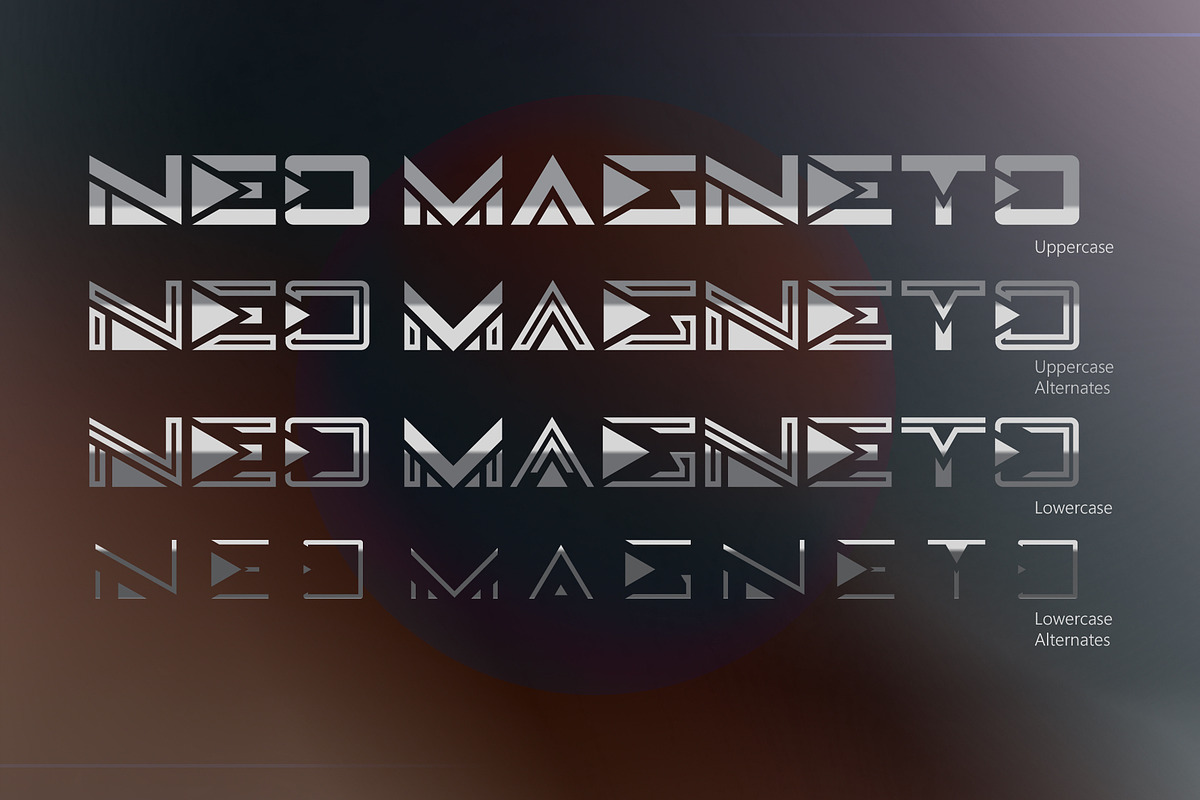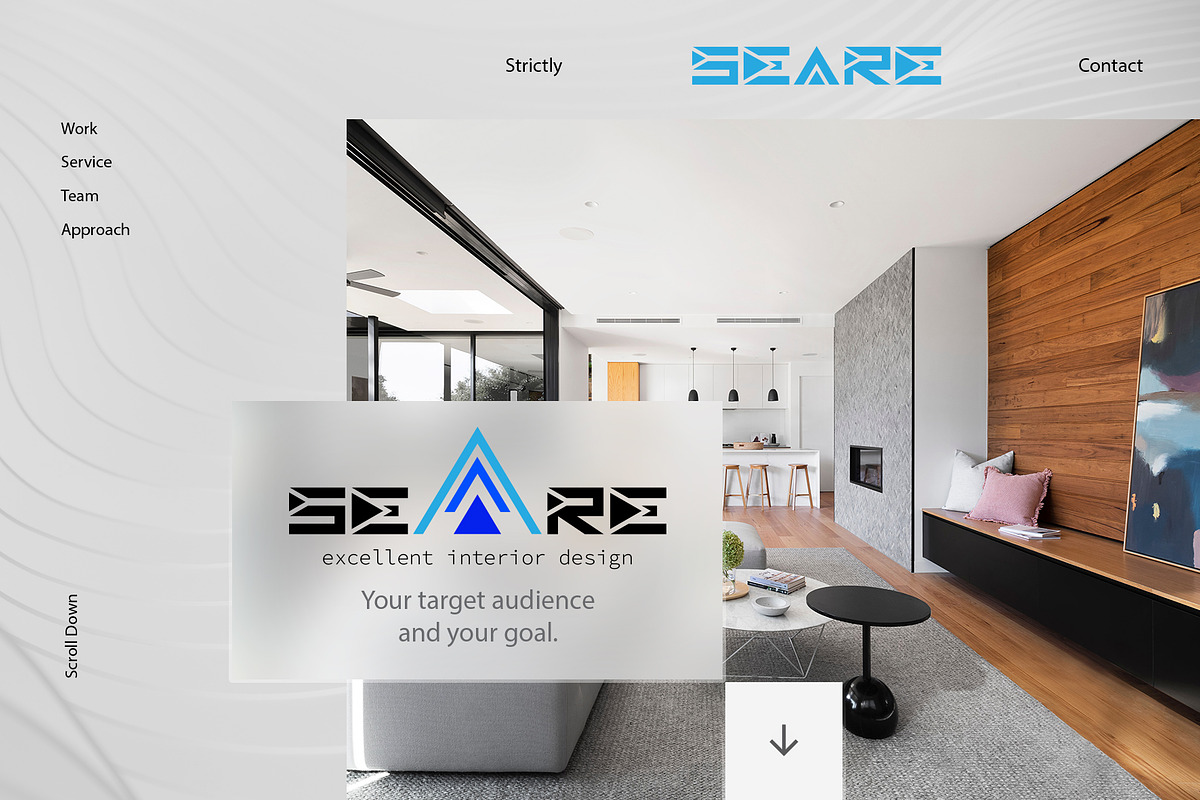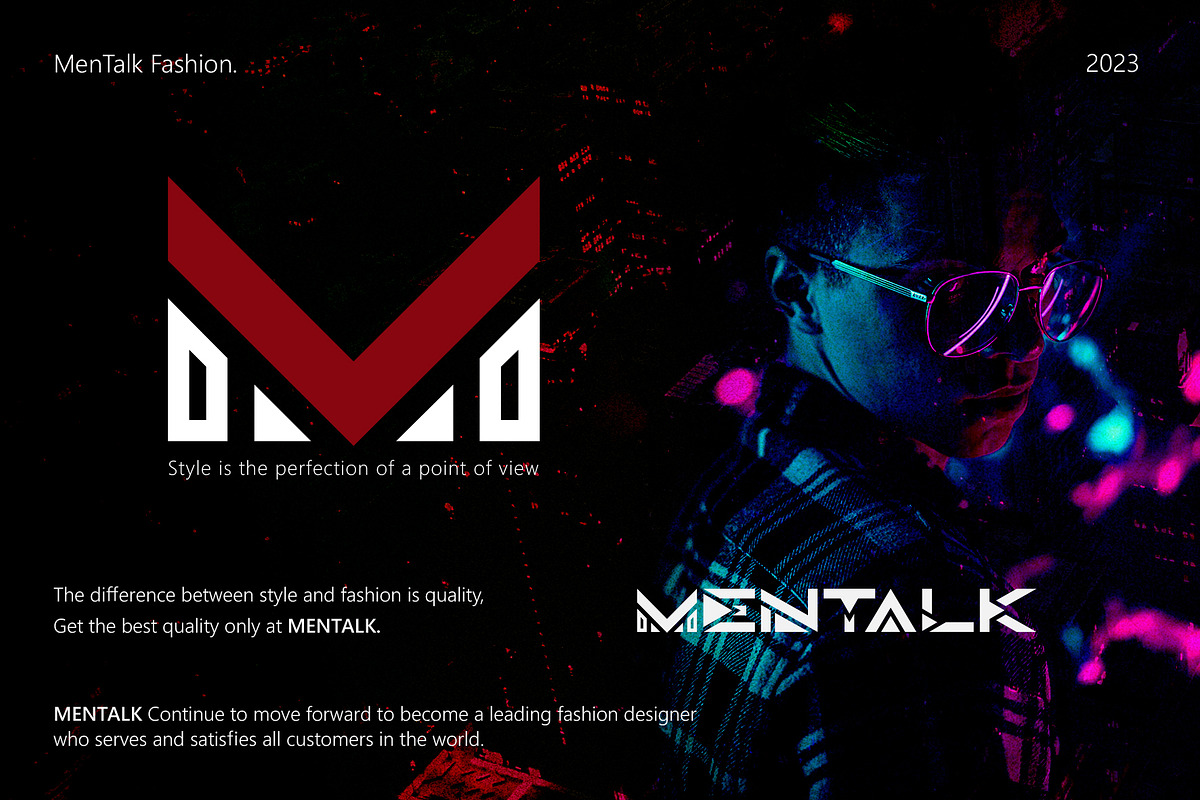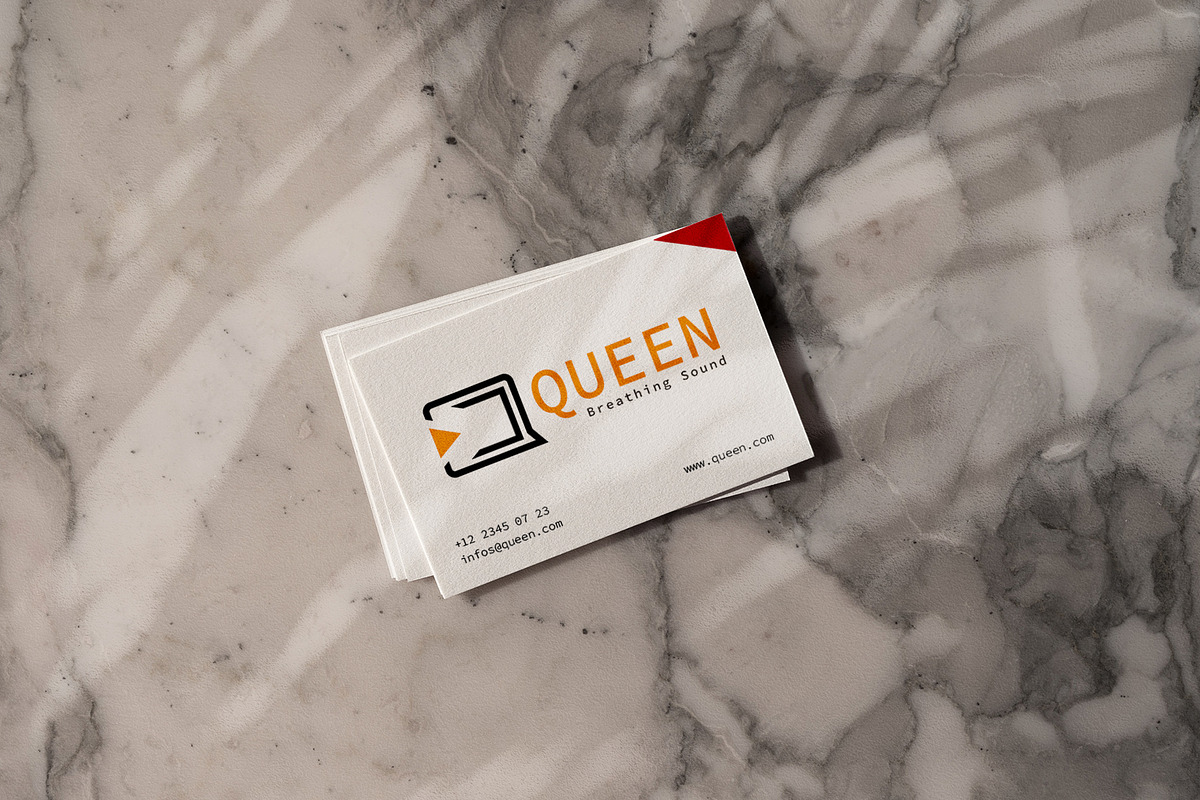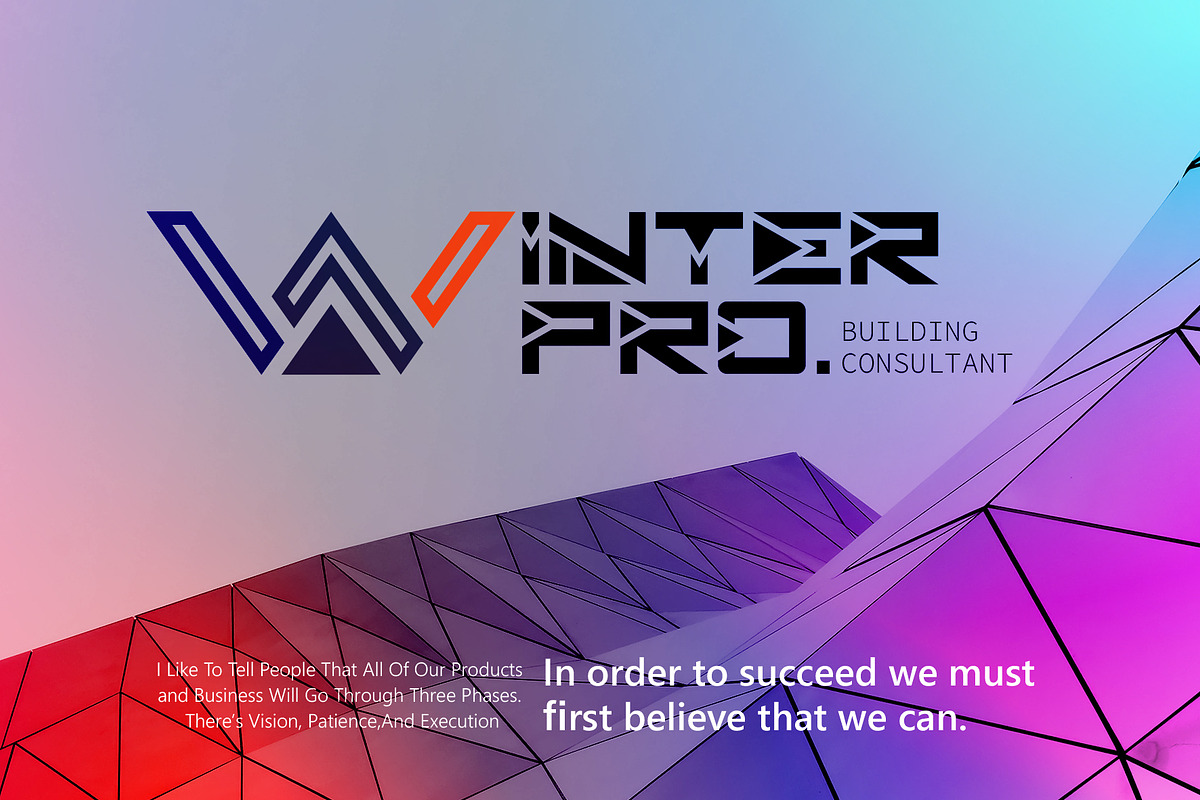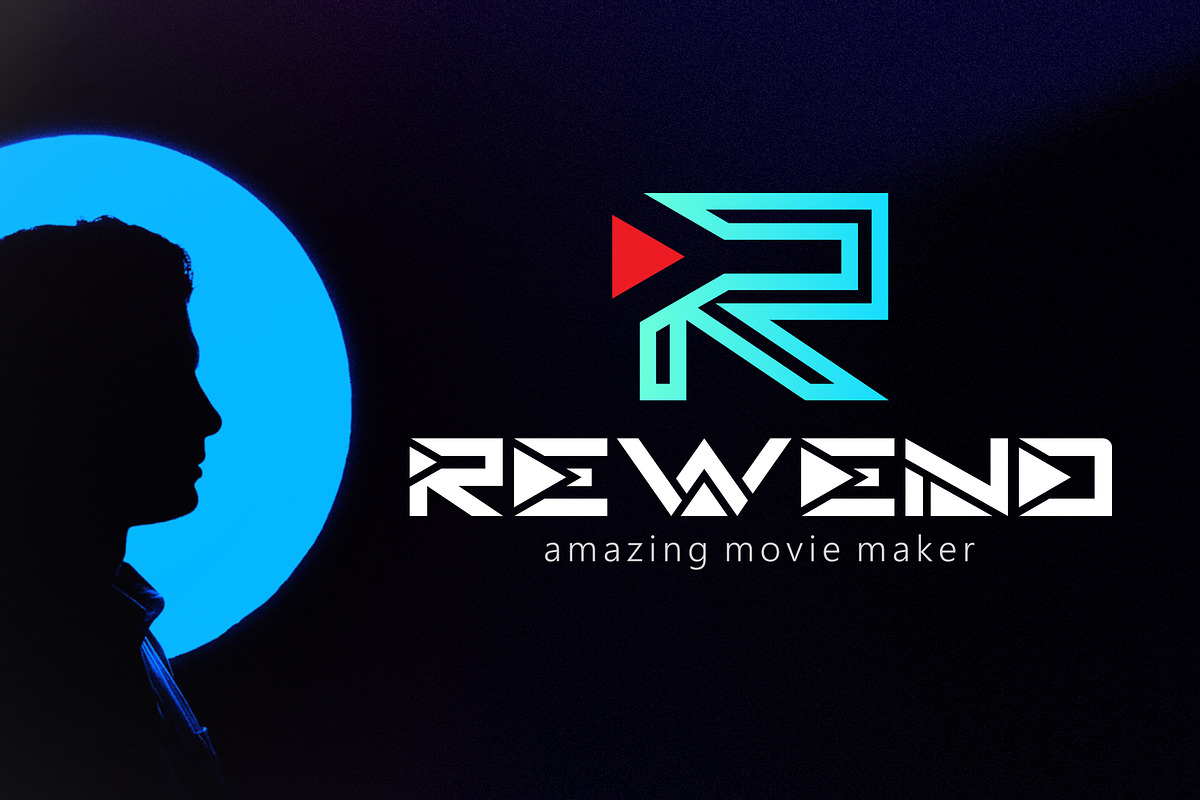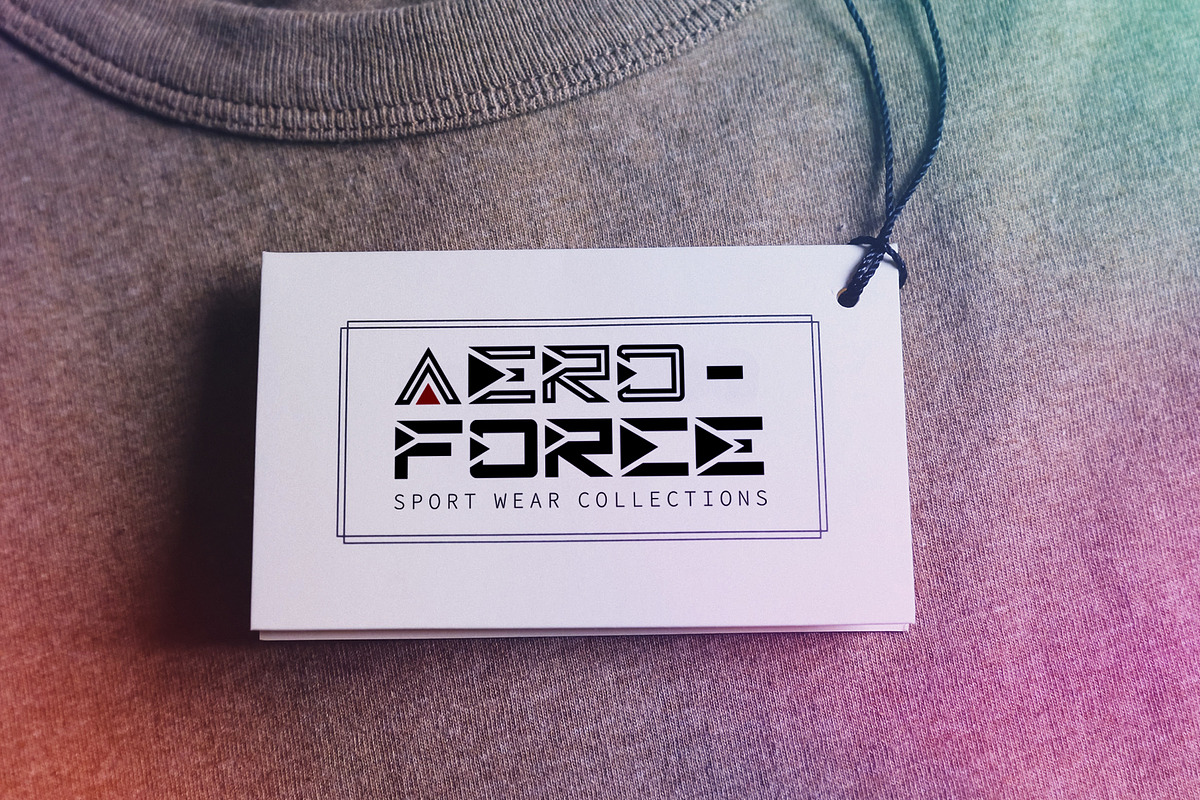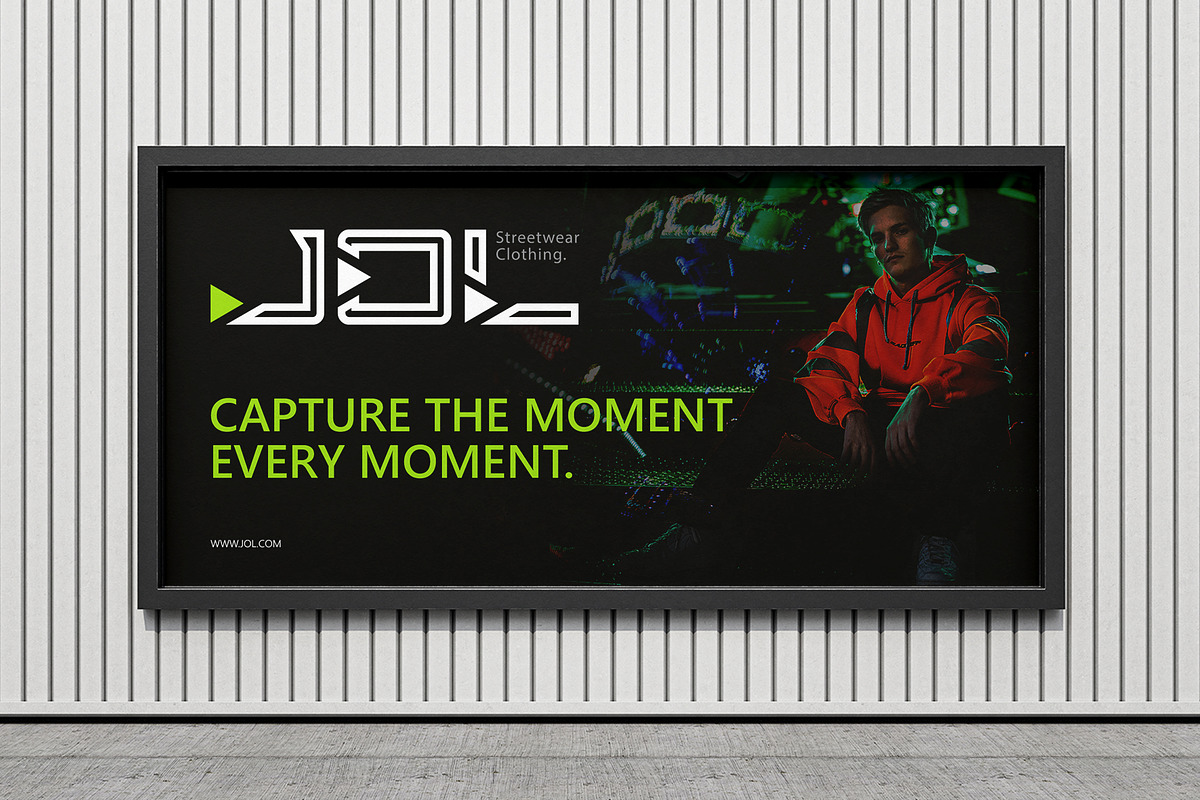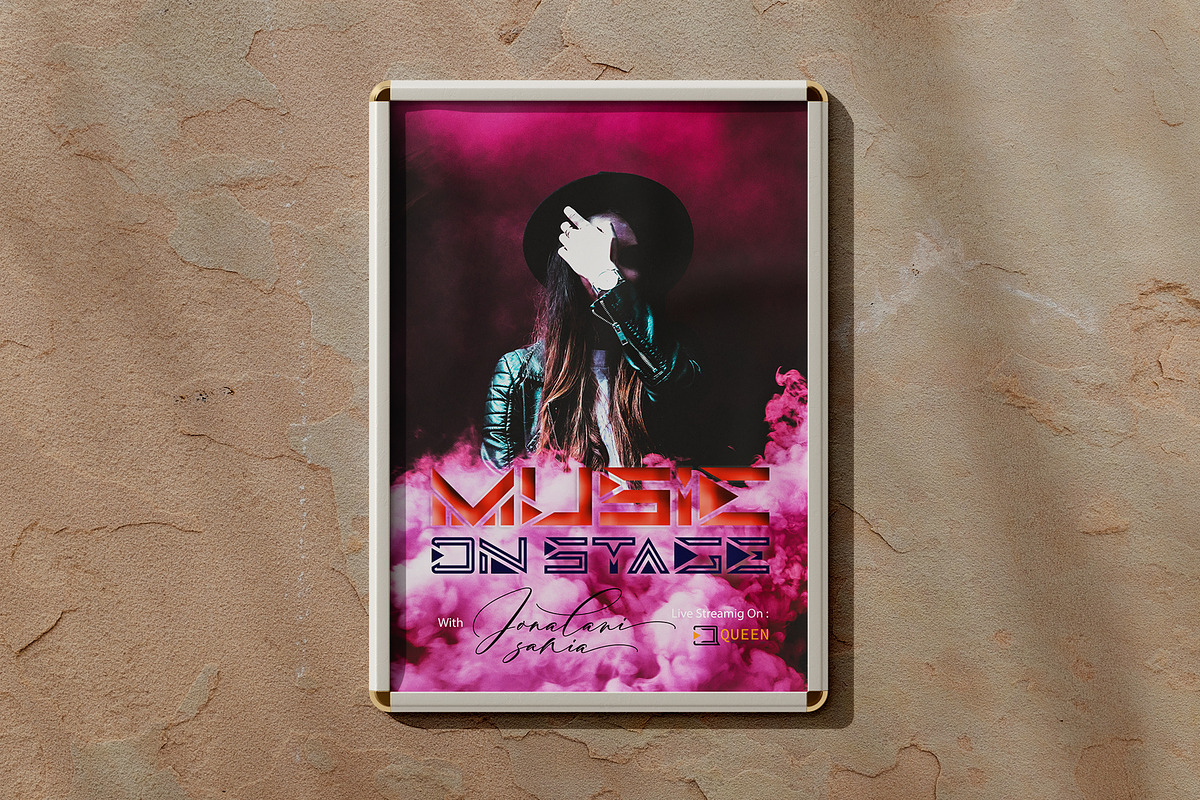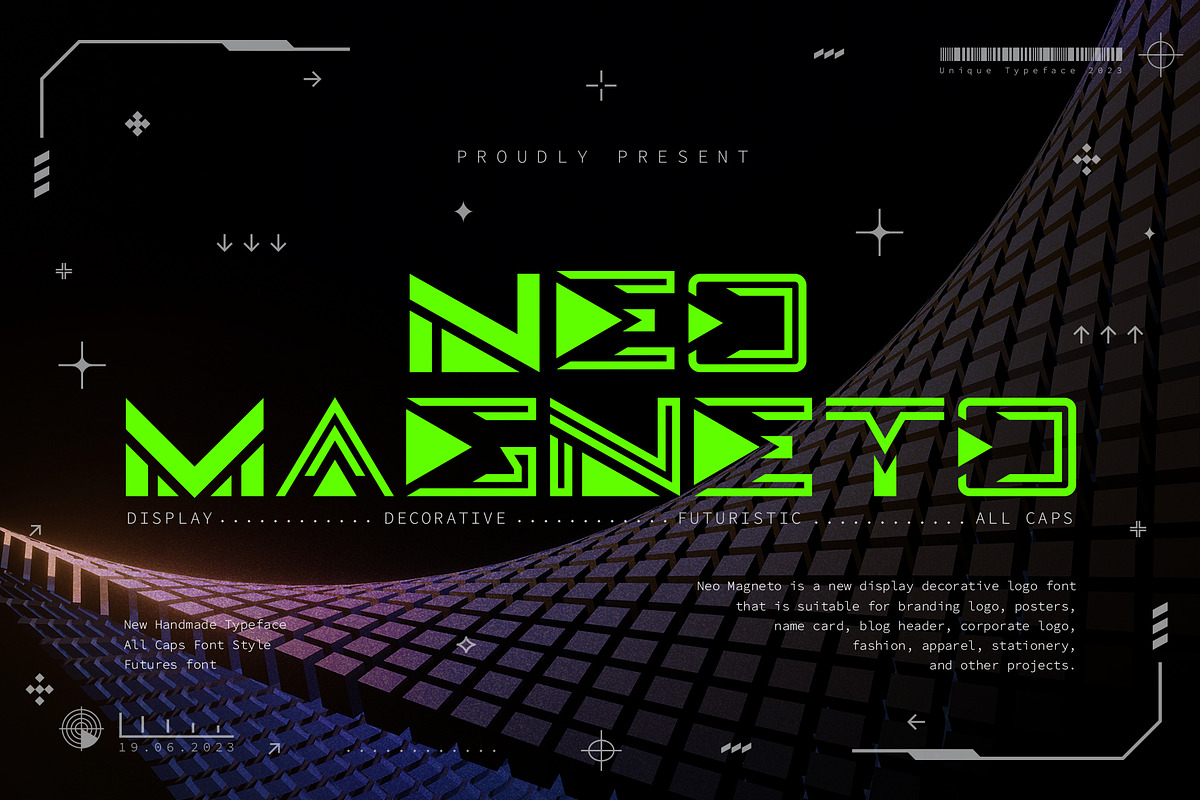
Neo Magneto
Neo Magneto All Caps Font Style is a new display decorative logo font that is suitable for branding logo, posters, name card, blog header, corporate logo, fashion, apparel, stationery and other projects.
The alternative characters were divided into several Open Type features such as Swash, Stylistic Sets, Stylistic Alternates, Contextual Alternates. The Open Type features can be accessed by using Open Type programs such as Adobe Illustrator, Adobe InDesign, Adobe Photoshop Corel Draw X version, And Microsoft Word. And this Font has given PUA Unicode (specially coded fonts). so that all the alternate characters can easily be accessed in full by a craftsman or designer.
Neo Magneto : Uppercase & Lowercase International Language & Symbols Support Punctuation & Number PUA Unicode Range Standard Stylistic Alternates Stylistic Set Character Variant Contextual.